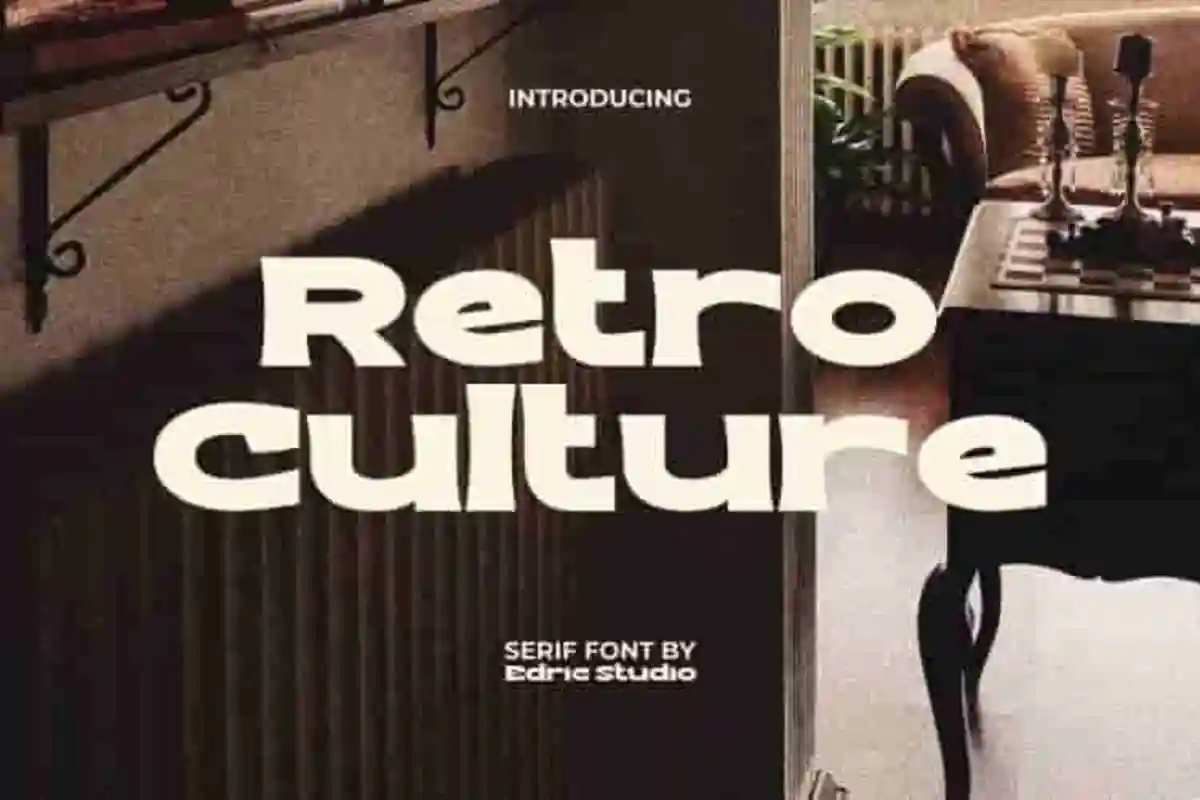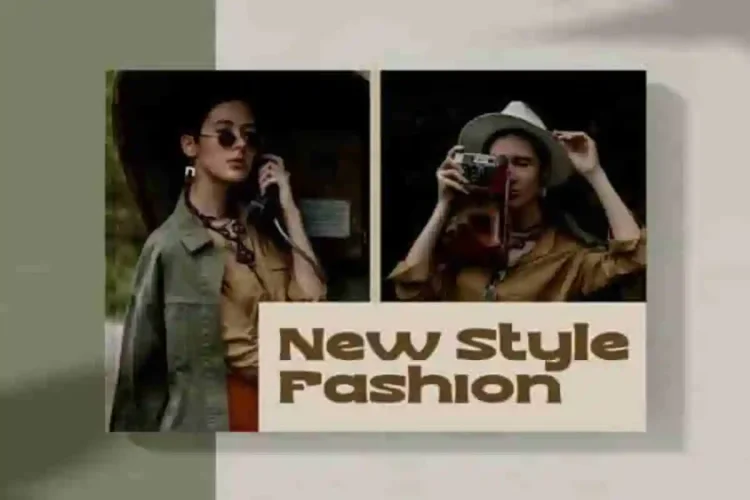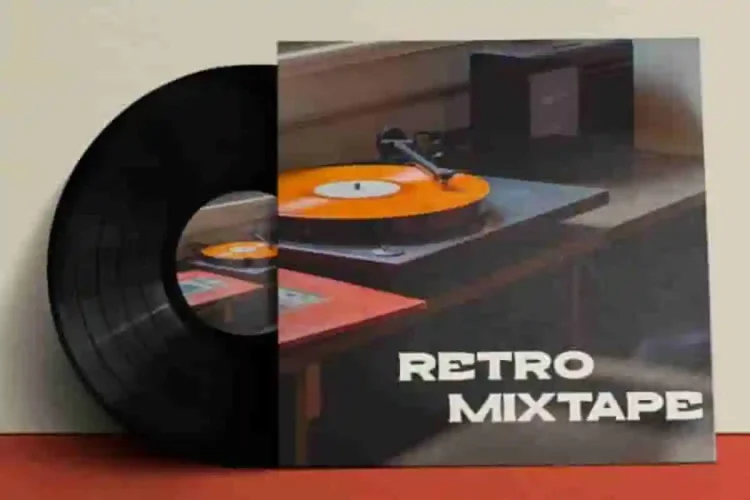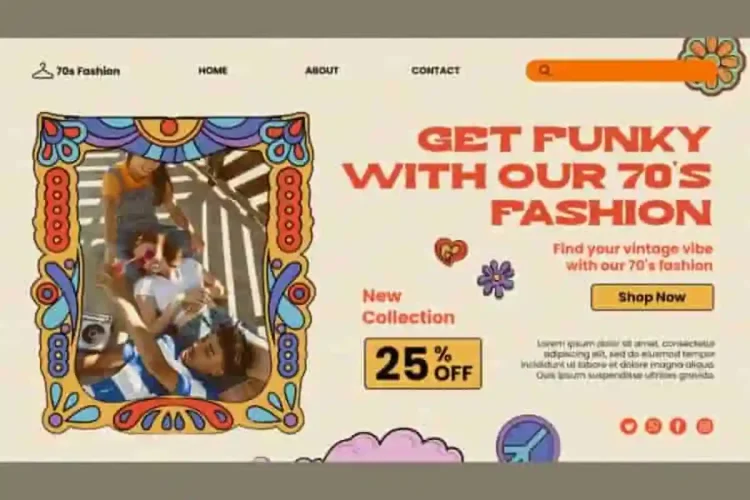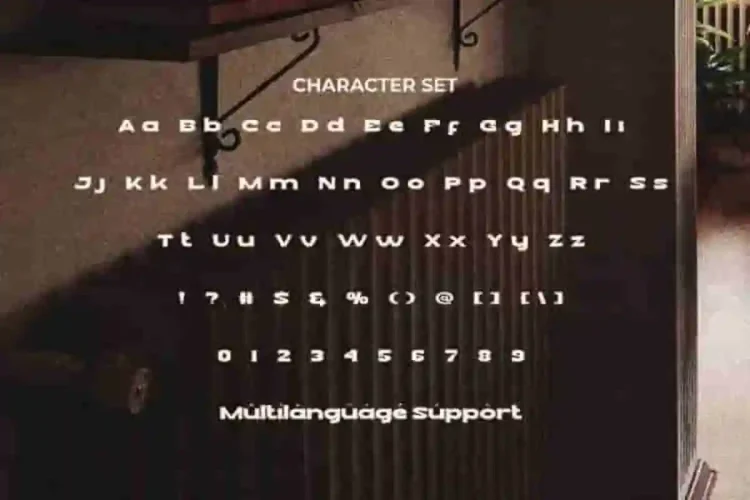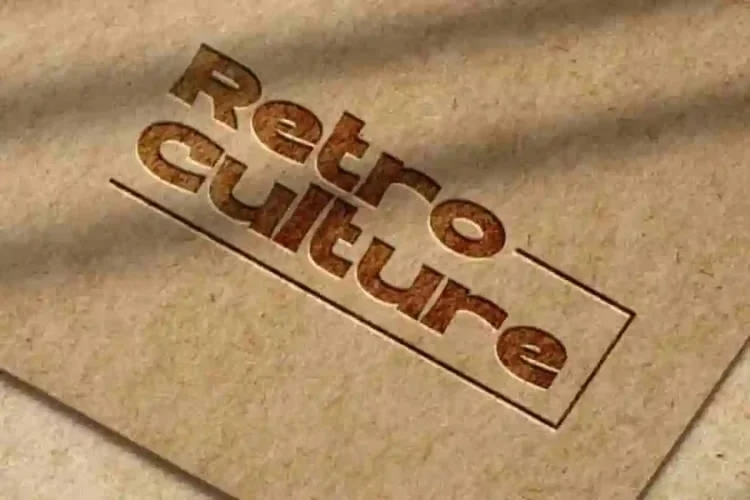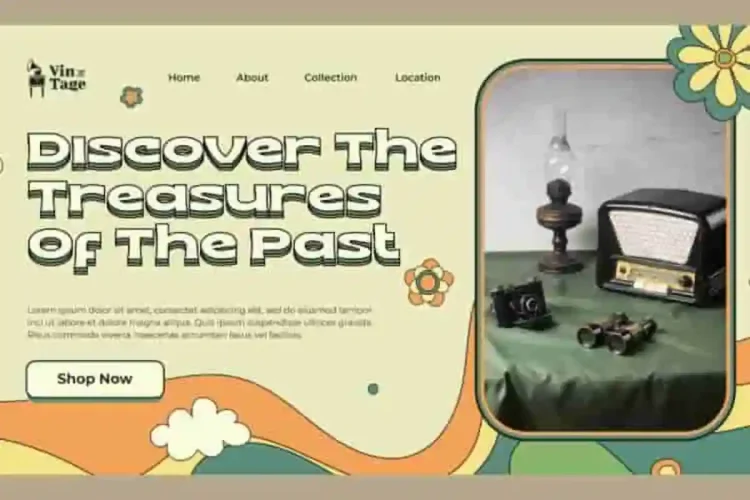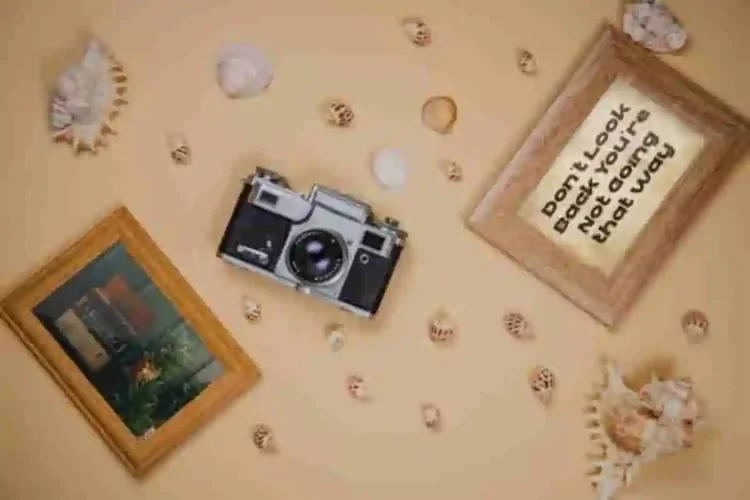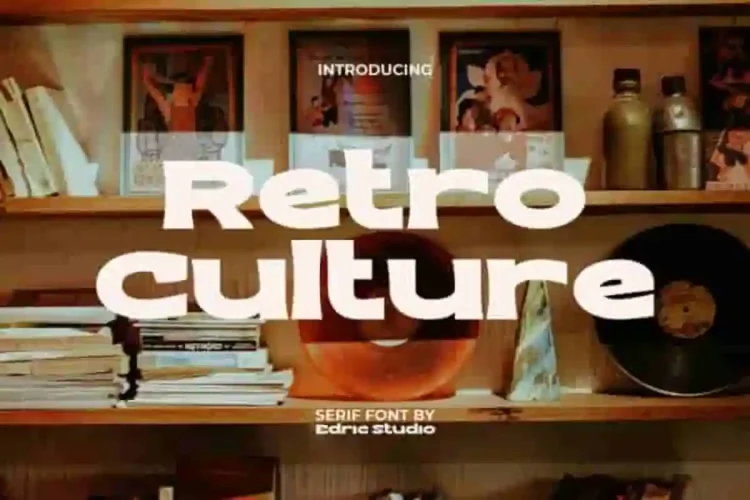
Retro Culture Display Grunge Font
Retro Culture Display Font is a classic bold serif font with a retro theme that fits the font name. These shapes give the vintage serif font an interesting look without sacrificing its minimalist style. This makes Retro Culture Font perfect for both contemporary branding and designs that celebrate the past.
Retro Culture Display Grunge Font comes with a complete set of Uppercase and Lowercase Letters, Number, Punctuation, and Symbols. This type of font can remind you of past designs which were very simple with a strong and timeless impression. Its bold presence makes it ideal for logos, titles, and quotes, giving your text a strong and memorable identity.
Retro Culture Font a playful typeface with unique decoration in each character. Combine different characters for a bespoke, handcrafted feel. It’s tested to work well in the Adobe Apps (Illustrator, Adobe InDesign, Adobe Photoshop) even work on Microsoft Word. All of these characters are available through the glyph panel, moreover each letter has its own unicode (PUA) so you can access all the characters easily.